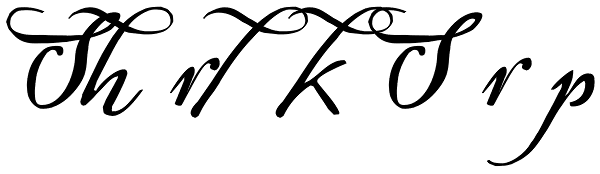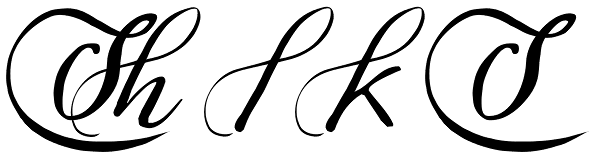
Sherlock Script
Sherlock is a very mysterious script, always on the lookout for the killer-design-project. It is a joining- or not-joining-script, whatever you want it to be. The pro-version sports 807 glyphs with language support for all European languages and...